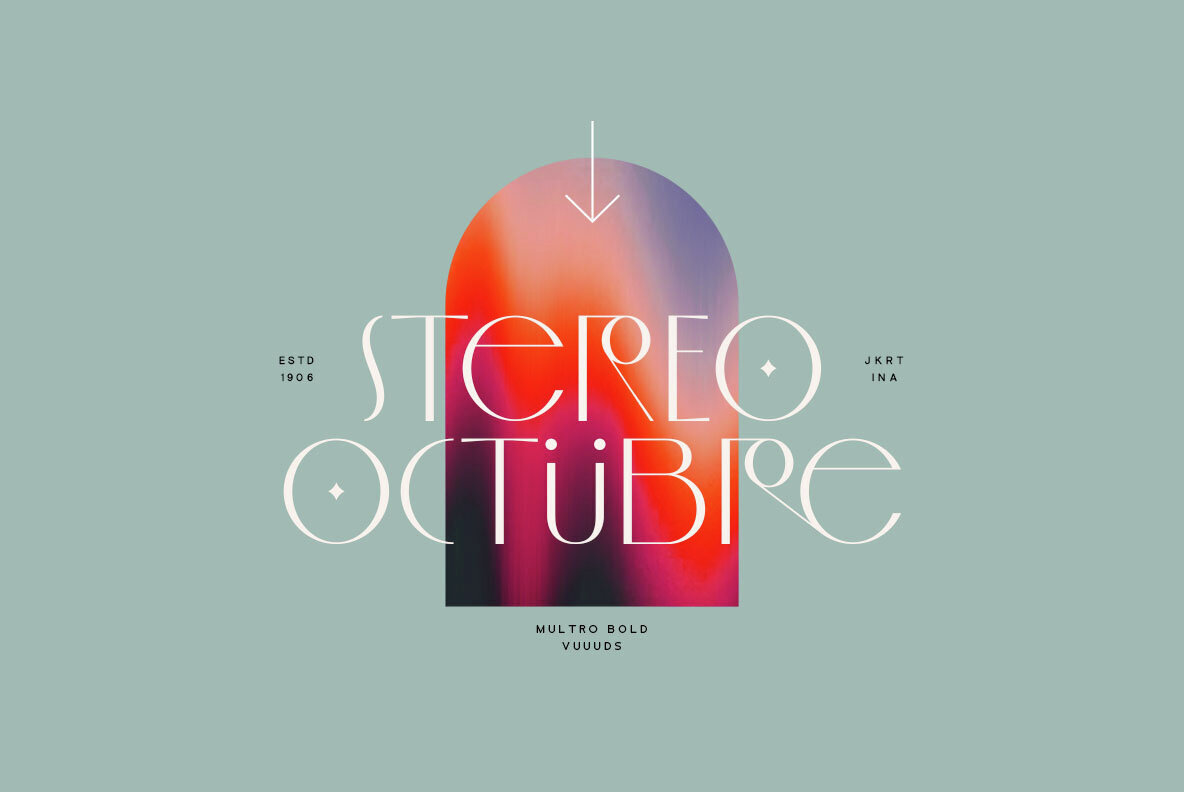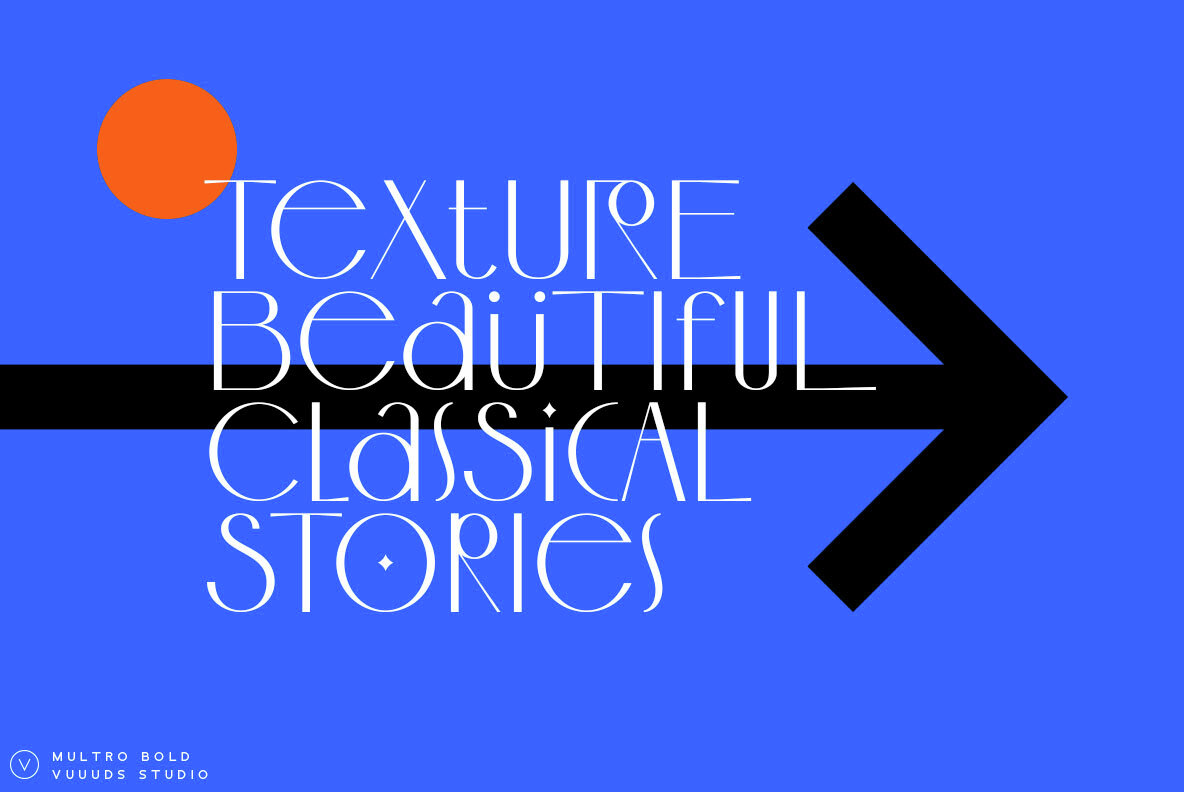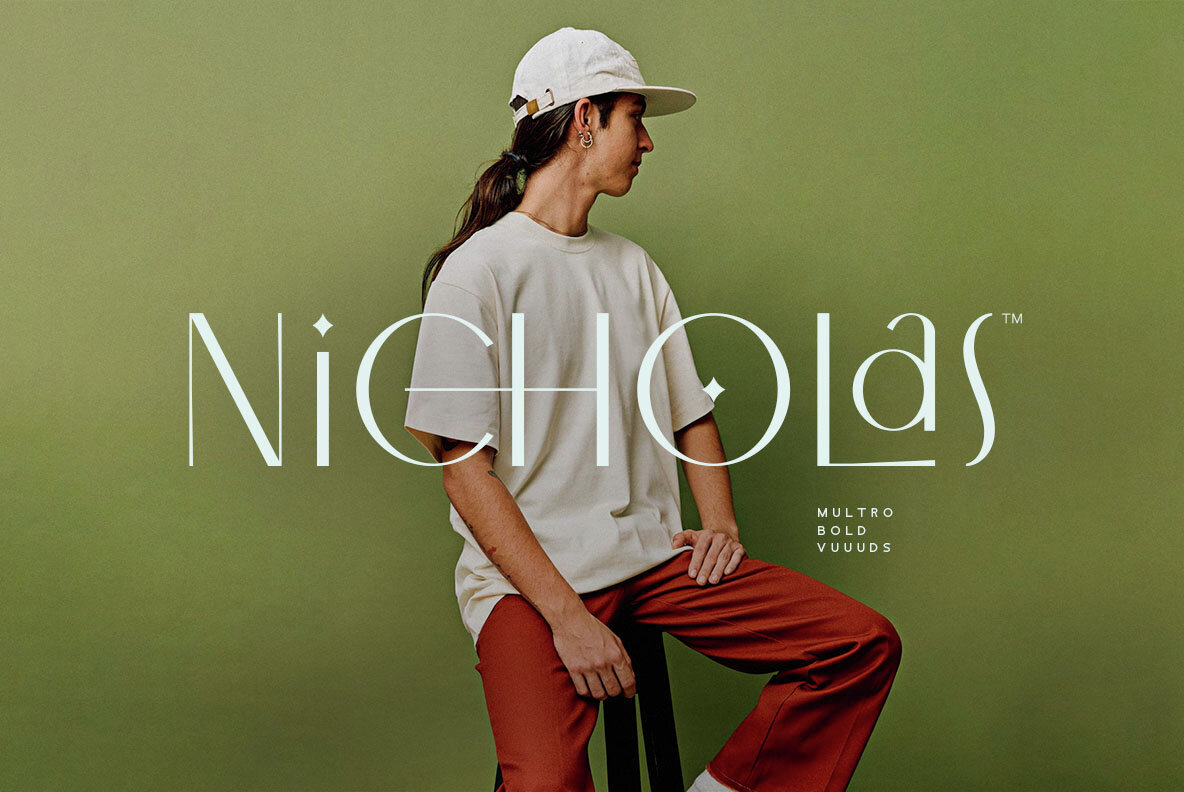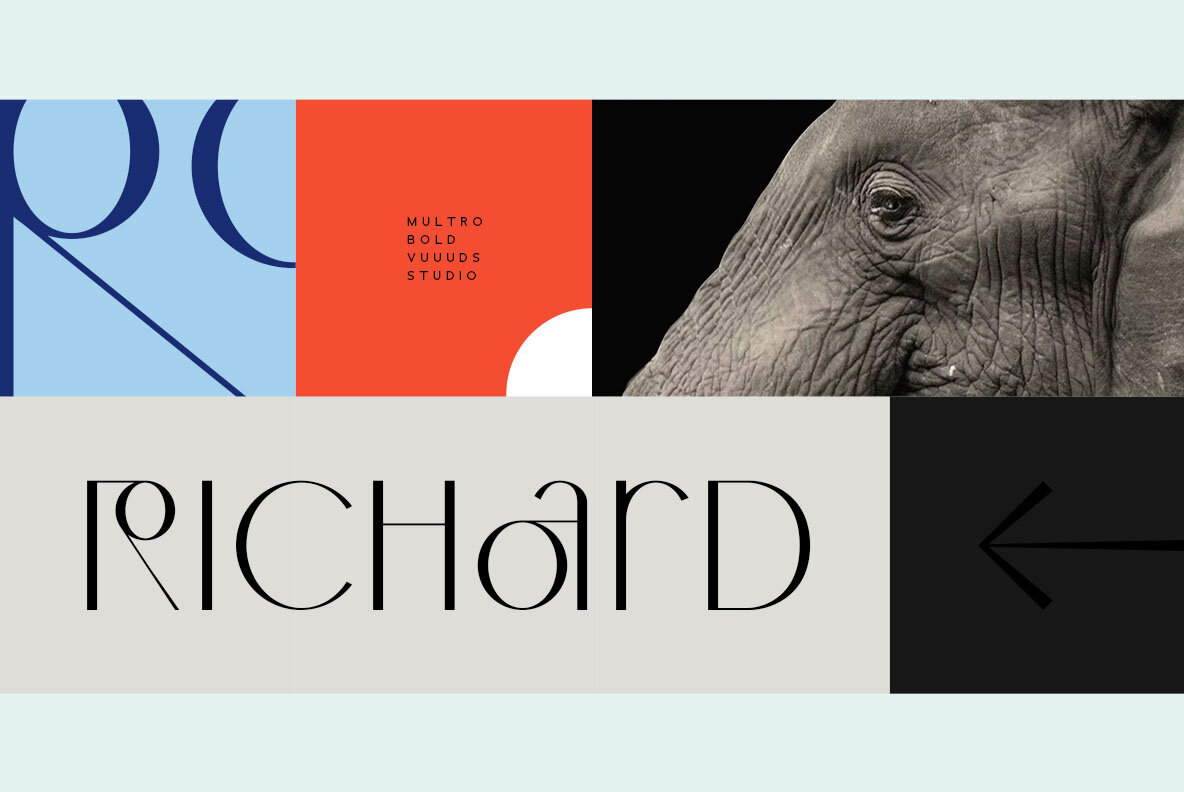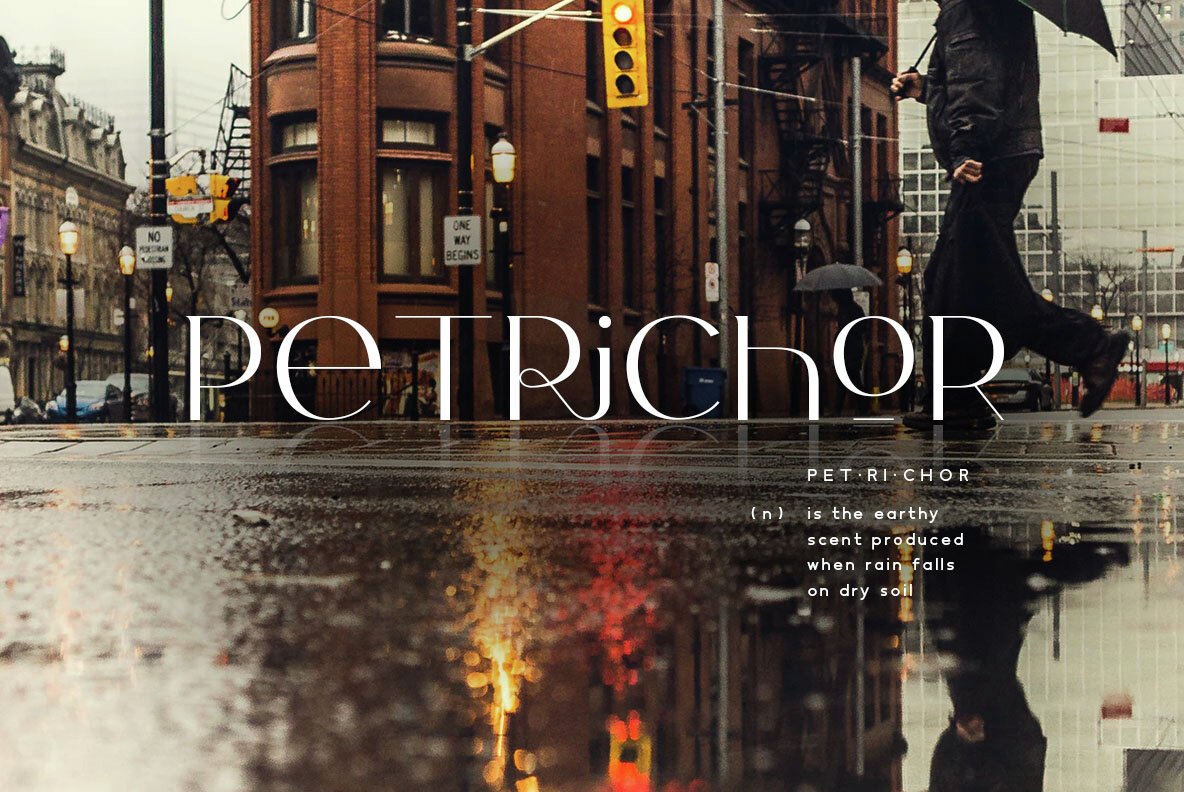
Multro Bold Font
Multro Bold
Multro Bold is an enhanced, bold version of the original Multro font by Vuuuds Studio. Known for its modern and experimental design, each letter of Multro Bold has been meticulously crafted to offer a distinctive look. Thank you for your interest in Multro Bold.Multro Bold: A Unique Bold Display Font